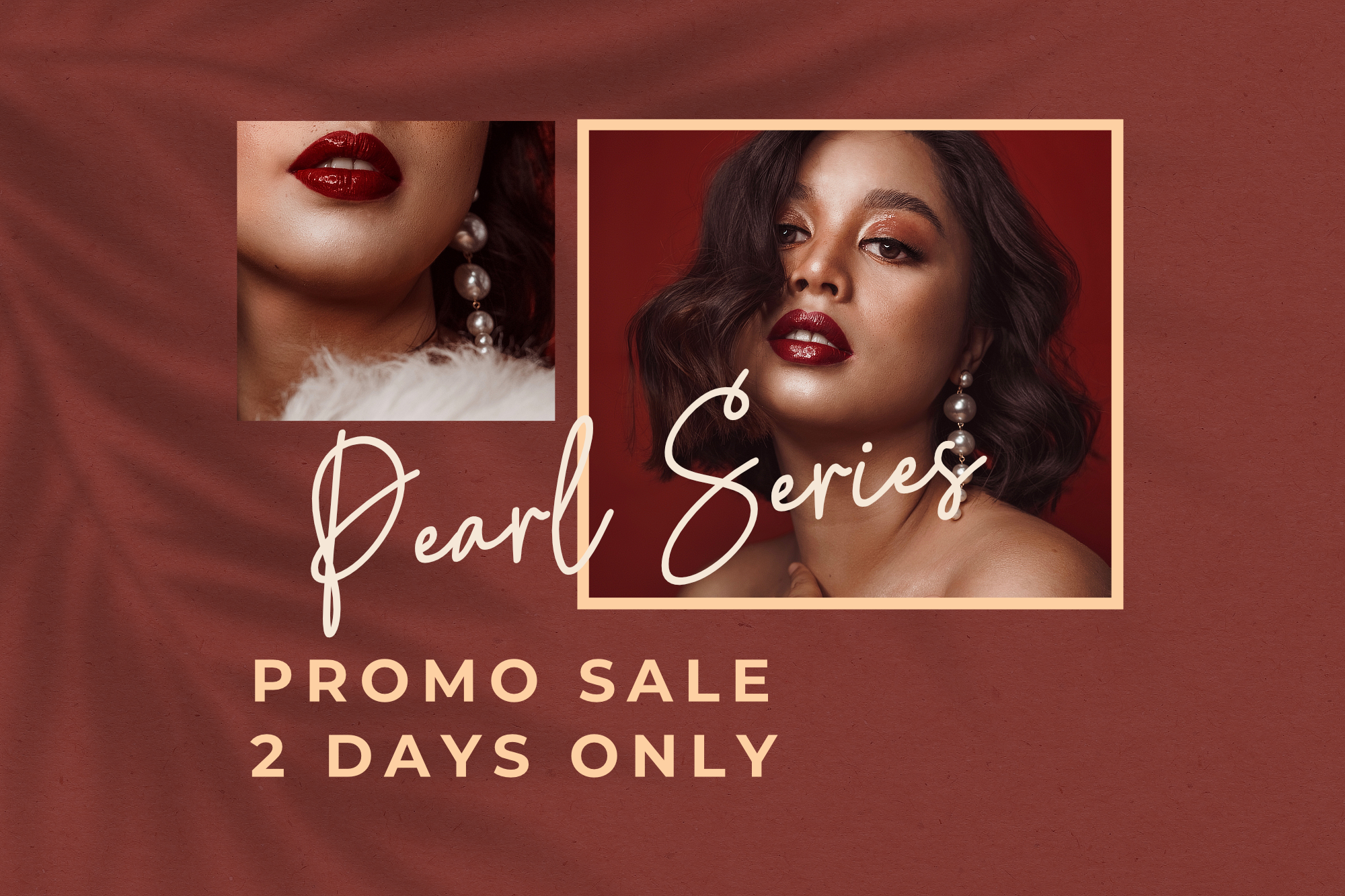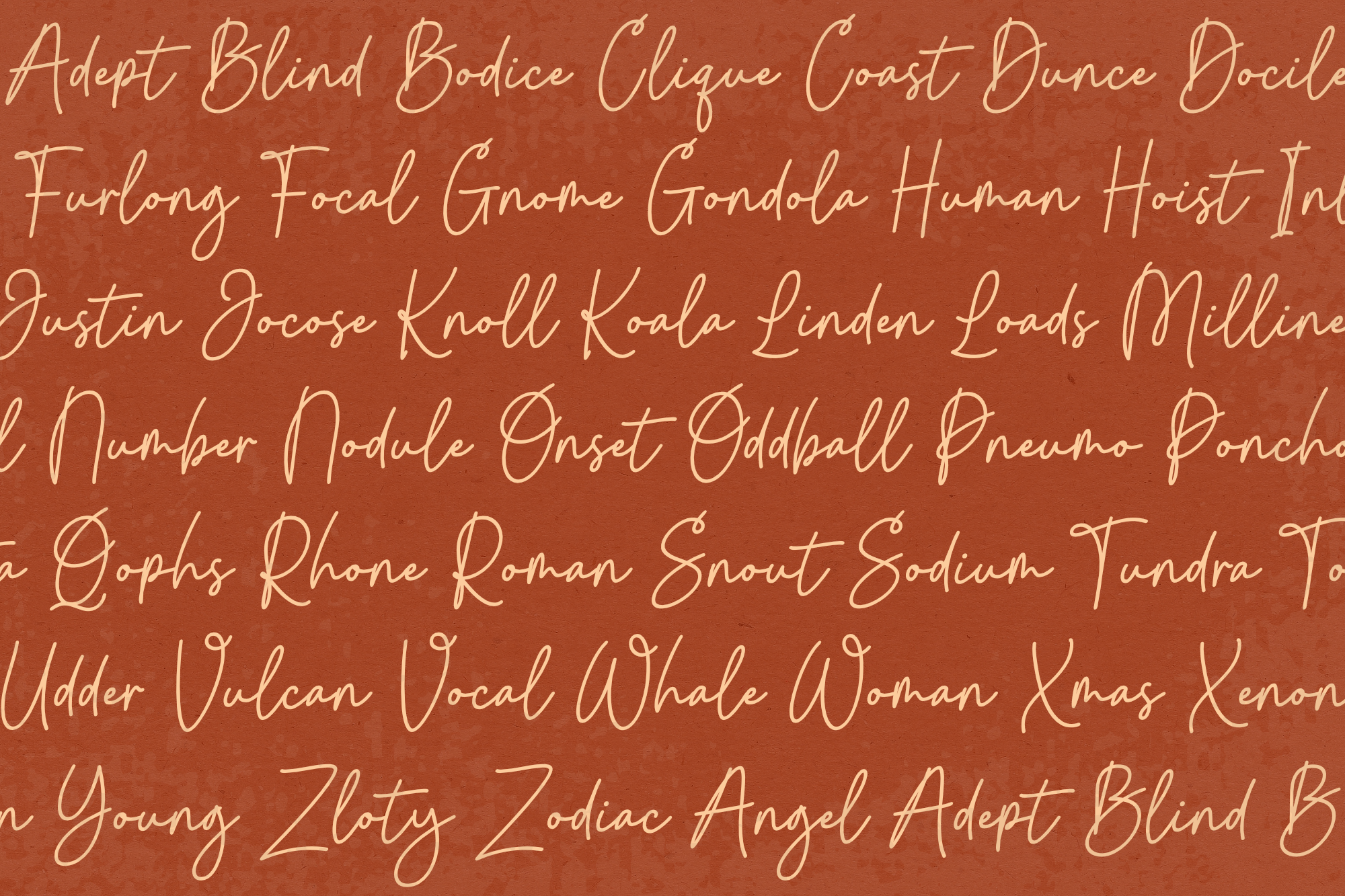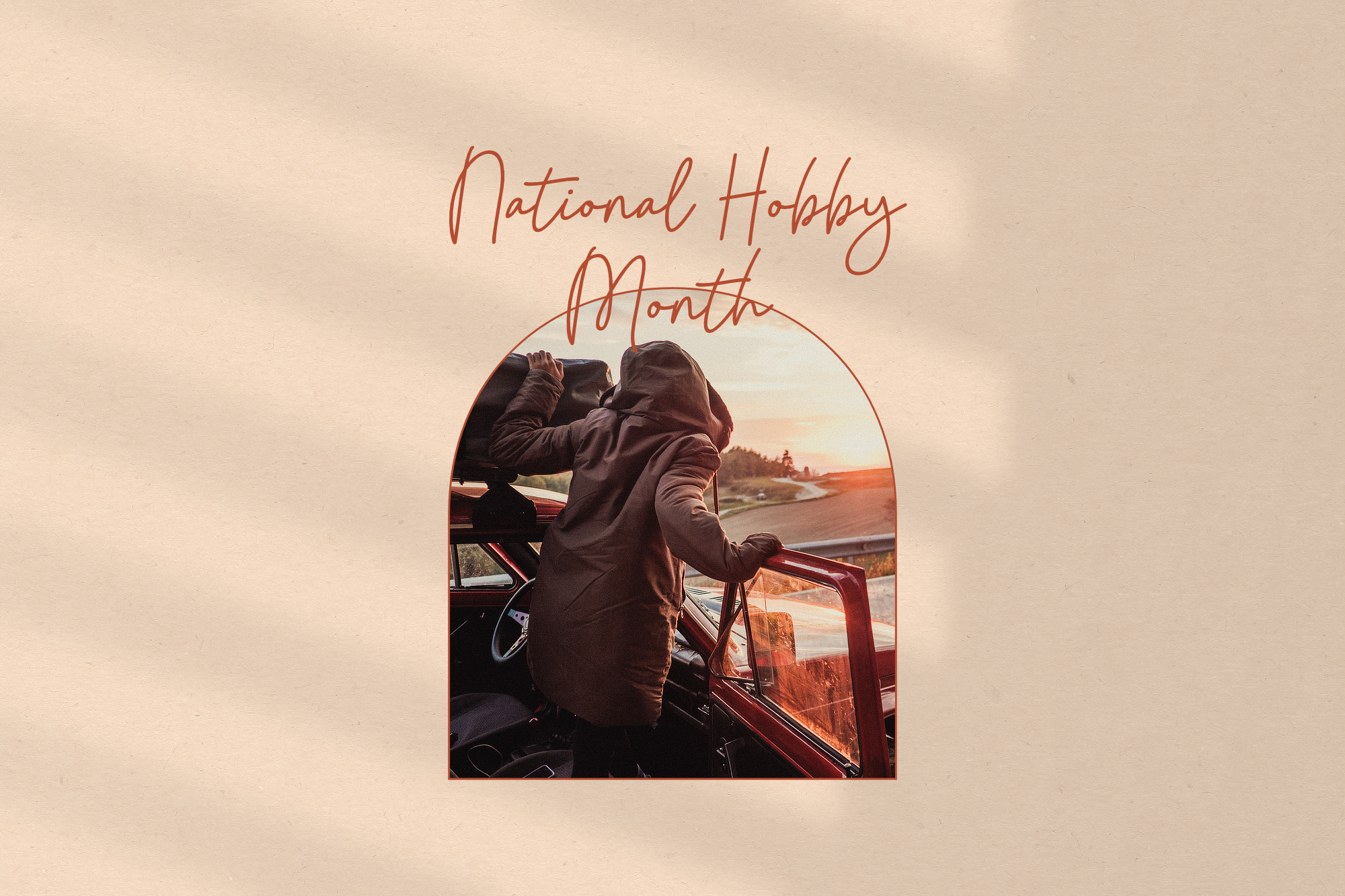
Absolutely Silent Handwritten Font
This is a simple and single line handwritten font, described by a refined touch. Fall in love with its distinct and timeless style and use it to create spectacular designs!